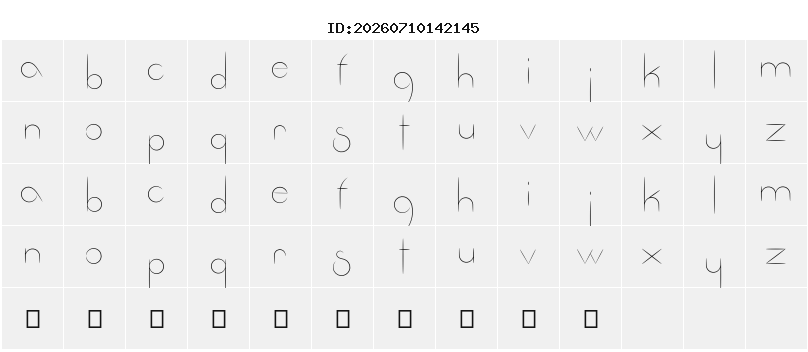
Fantastica Preview
• Font Name: Fantastica
• Full Font Name: Fantastica
• Character Count: 55
About Fantastica.otf
Fantastica.otf is a modern, elegant sans-serif font designed for ultimate readability and visual harmony. Perfect for branding, headlines, web design, and print materials.